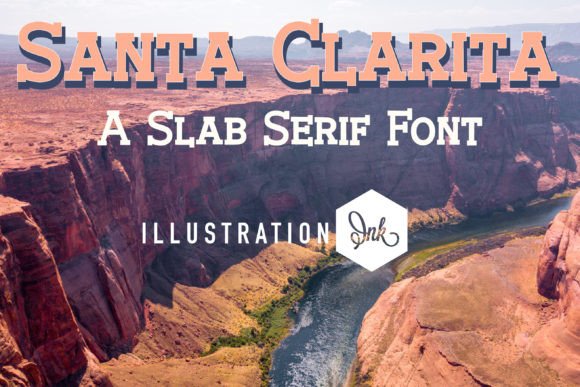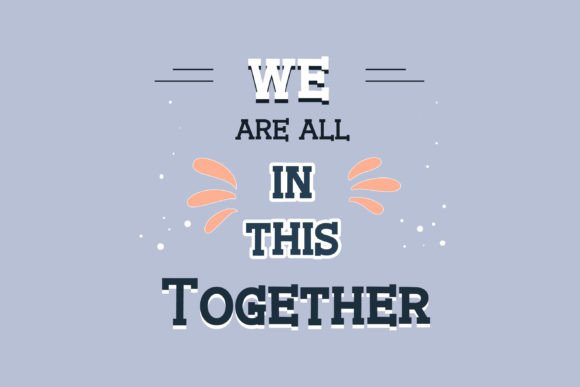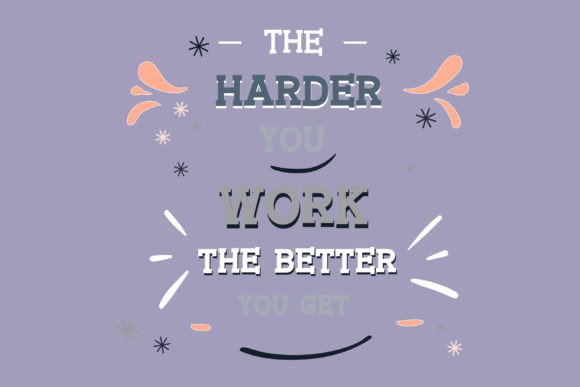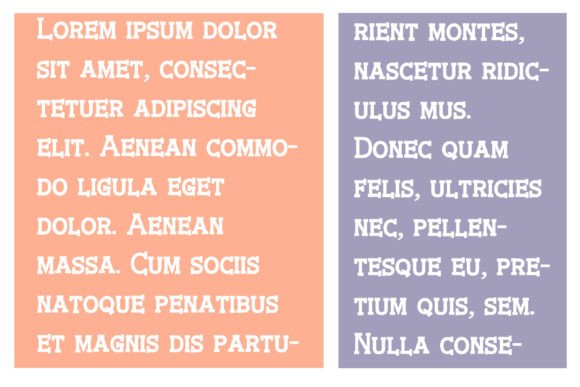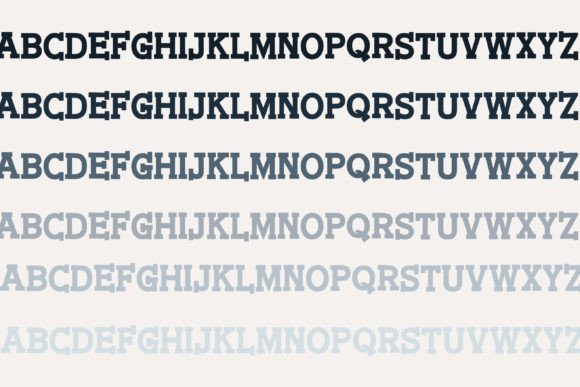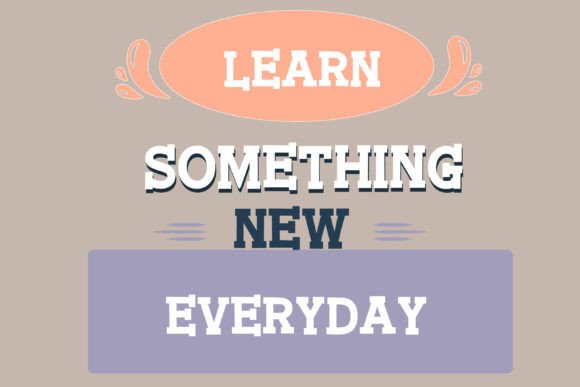
About Santa Clarita
Experience the bold and modern appeal of an attractive slab serif font. This typeface features thick and striking lines that create a powerful and commanding presence, making it perfect for headlines, titles, and logos. Its eye-catching design is sure to make a lasting impression, elevating any design project to the next level.